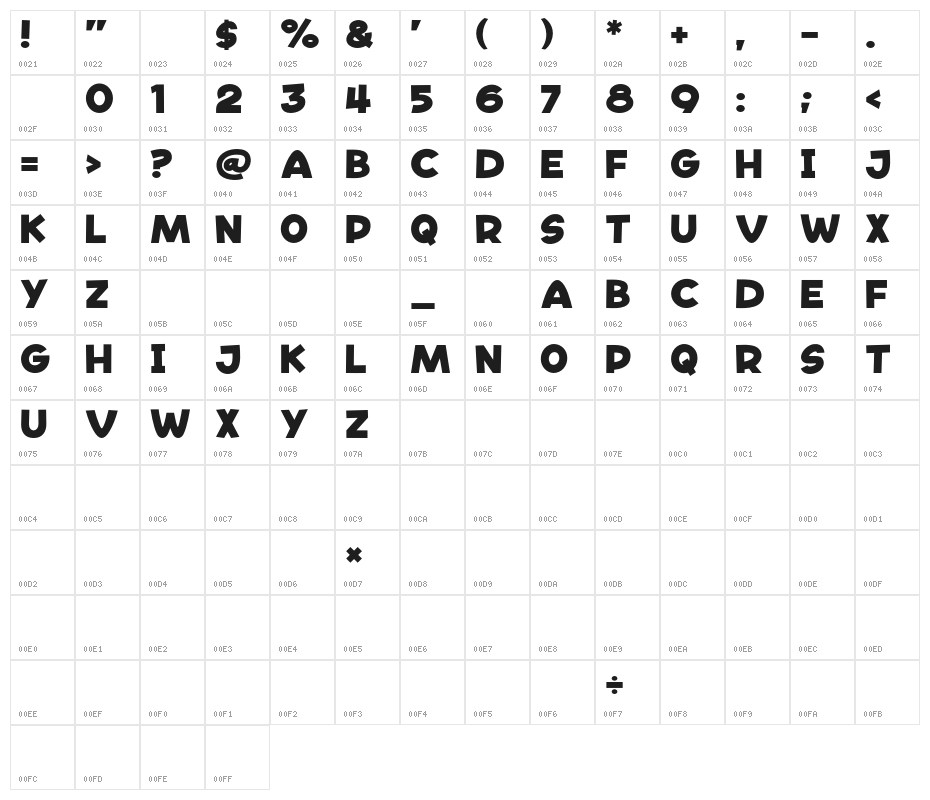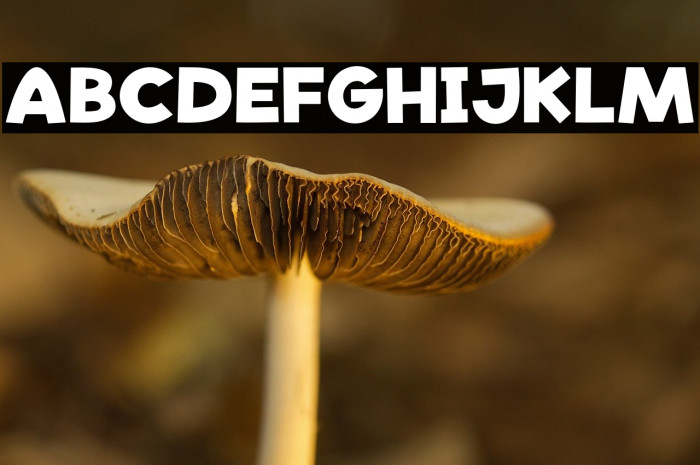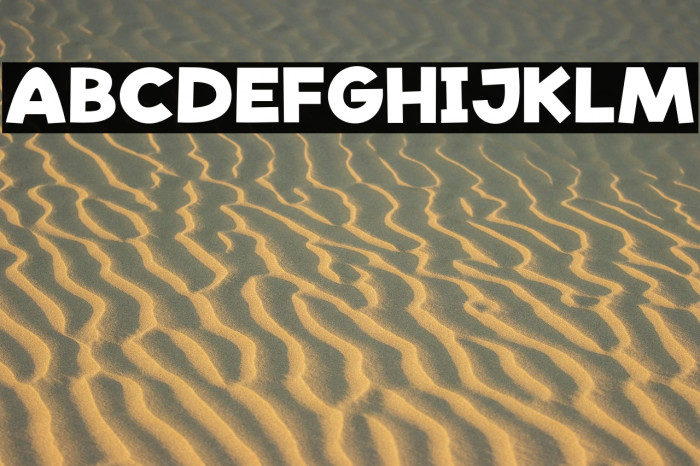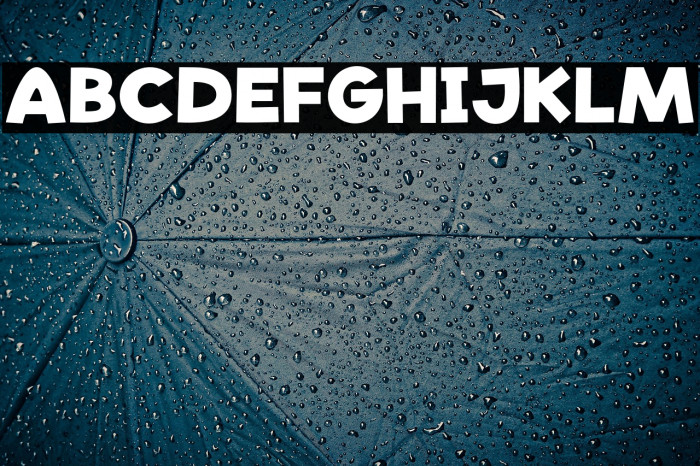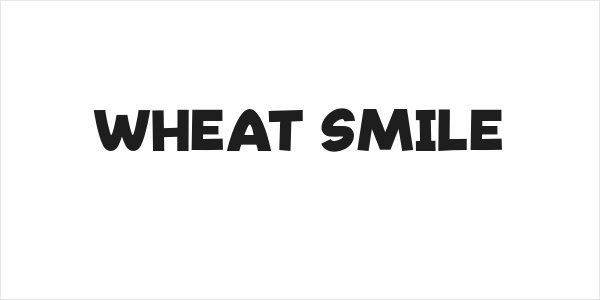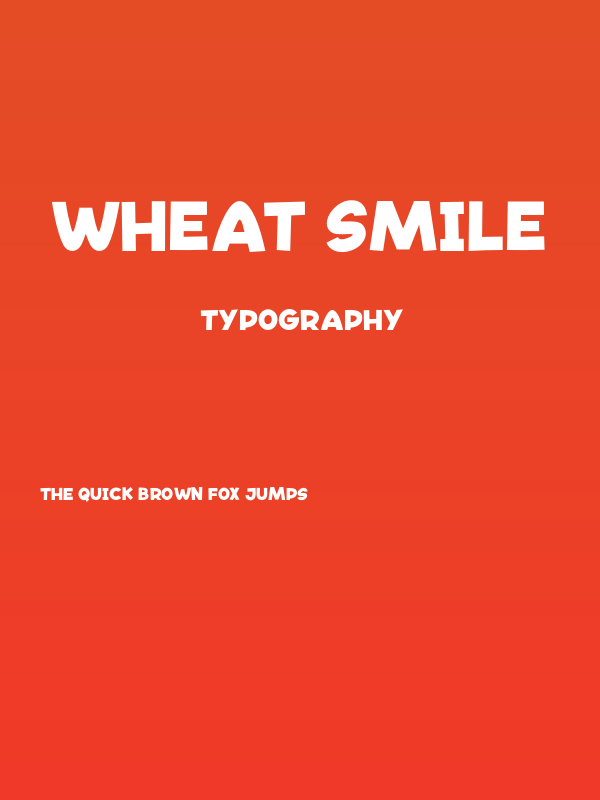
Wheat Smile Font
Wheat Smile Description
This font features bold, playful characters with a slightly irregular and whimsical style. The letters have a cartoonish appearance, with thick strokes and rounded edges that give them a friendly and approachable feel. The uppercase and lowercase letters maintain a consistent style, with a slight tilt that adds to the dynamic and lively nature of the font. The numbers and special characters are equally bold and maintain the playful aesthetic, making them suitable for attention-grabbing designs. The overall design is cohesive, with a sense of movement and energy that makes it ideal for creative and fun projects.
| Overall Style | Playful, Cartoonish, Whimsical |
| Proposed Projects | Ideal for children's books, comic strips, playful branding, and party invitations. |